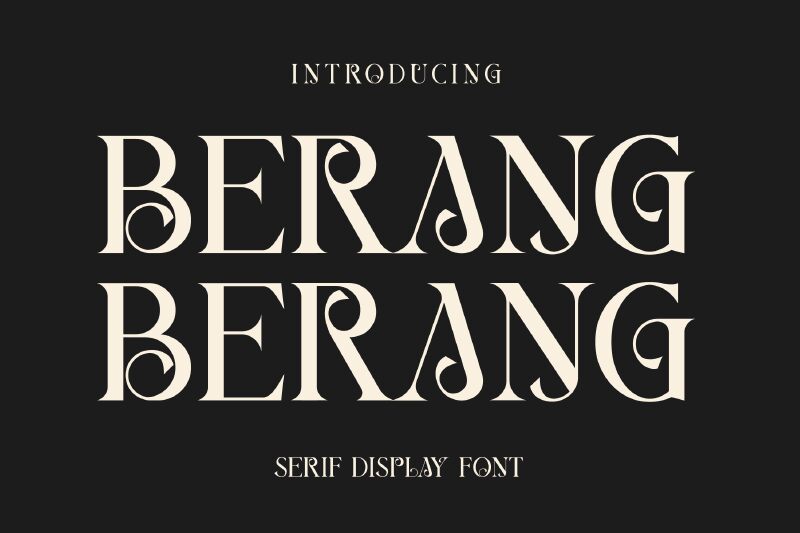
Presenting Berang Berang Display Font, a creation of Maryamtype Studio. This unique serif typeface with a retro and curly style is perfect for a wide range of projects.
Its semi-light weight adds an elegant touch to logos, book and movie titles, fashion brands, magazines, and clothing designs. The font's luxurious look also makes it suitable for quotes and other creative projects.
Whether you're working on branding or editorial design, BerangBerang will bring an eye-catching and sophisticated vibe to your work.
So if you're looking to add a touch of elegance and luxury to your next project, whether it's a high-end fashion brand or a stylish magazine layout, BerangBerang Display Font is the perfect choice.